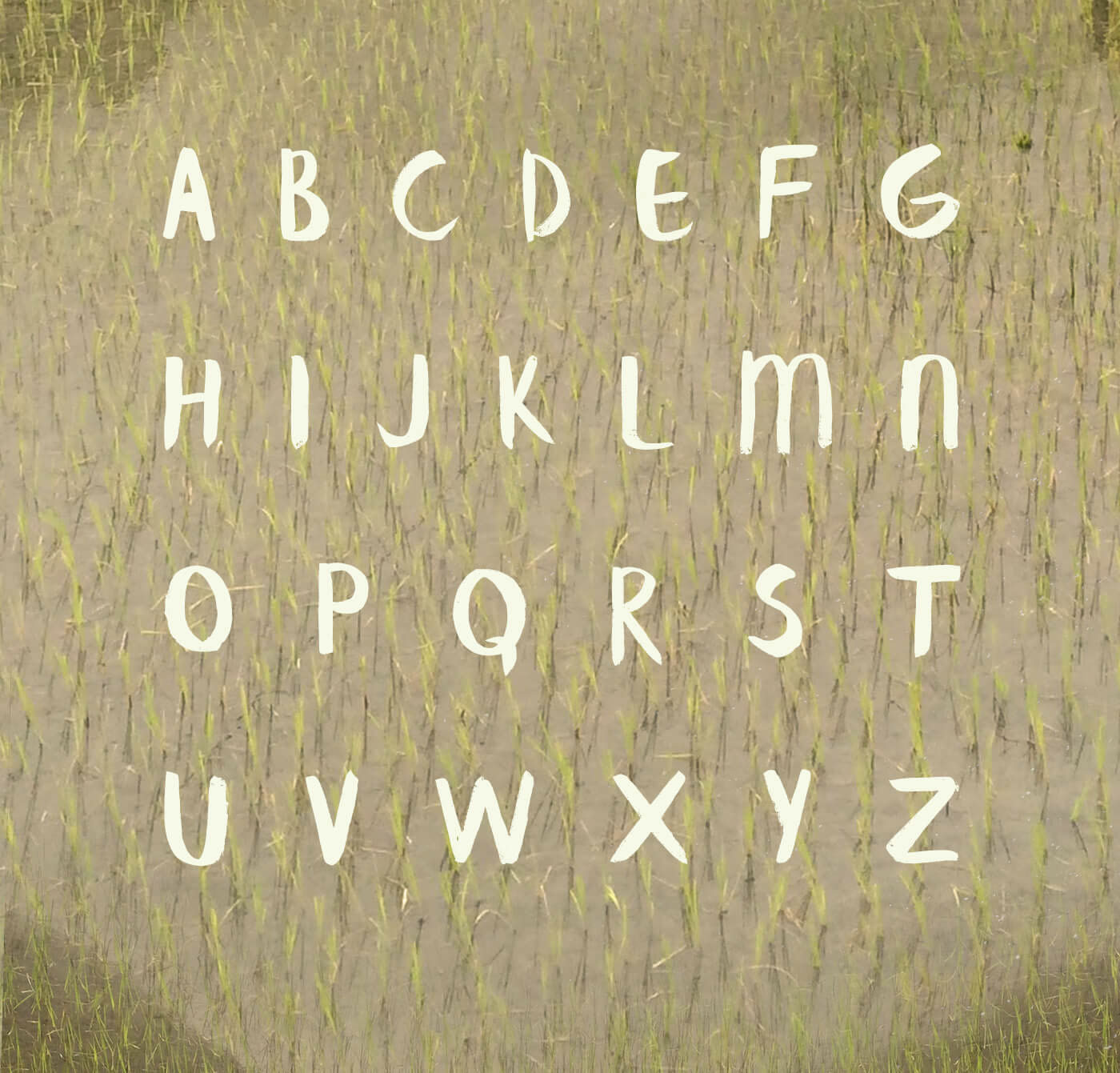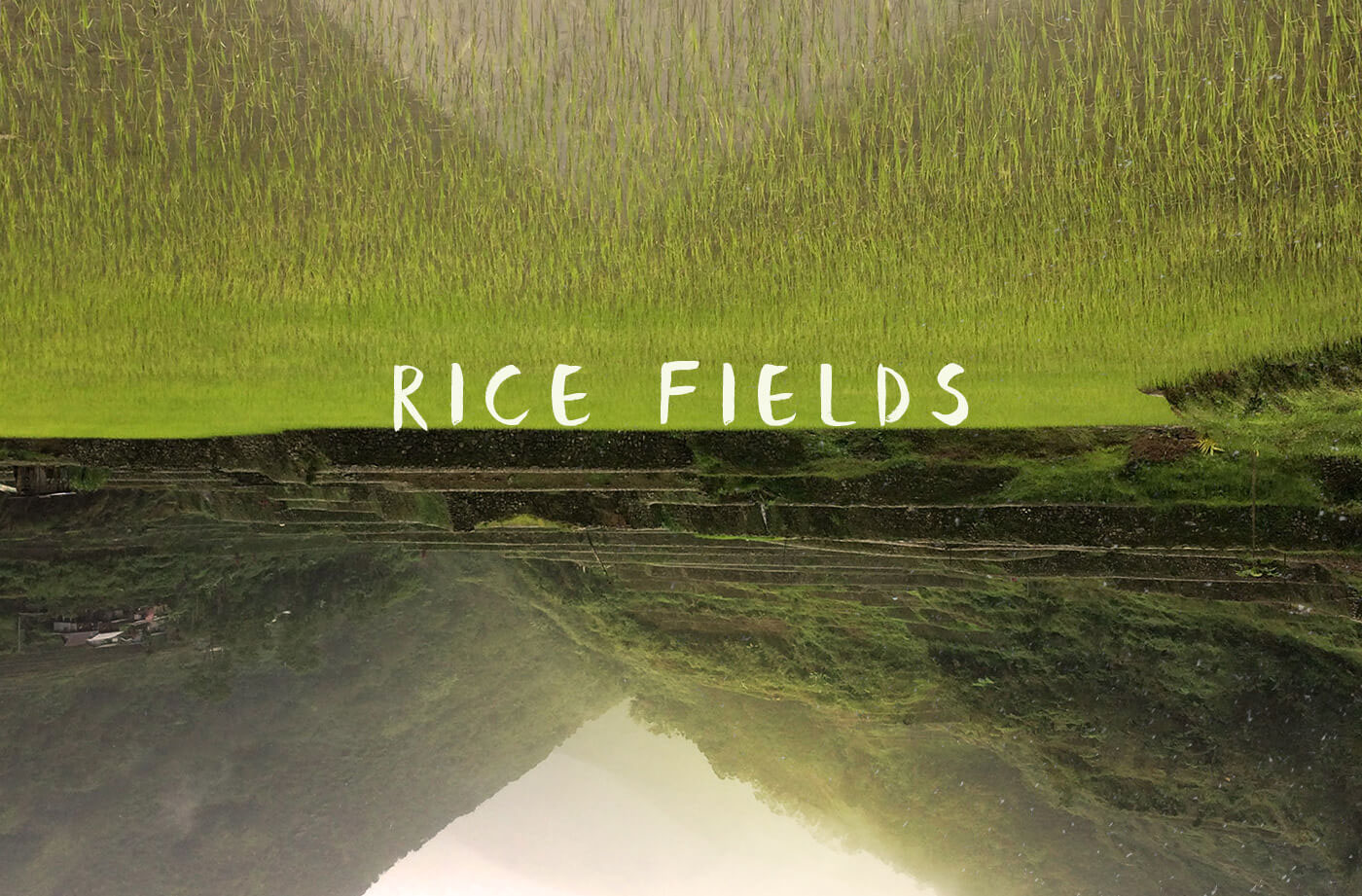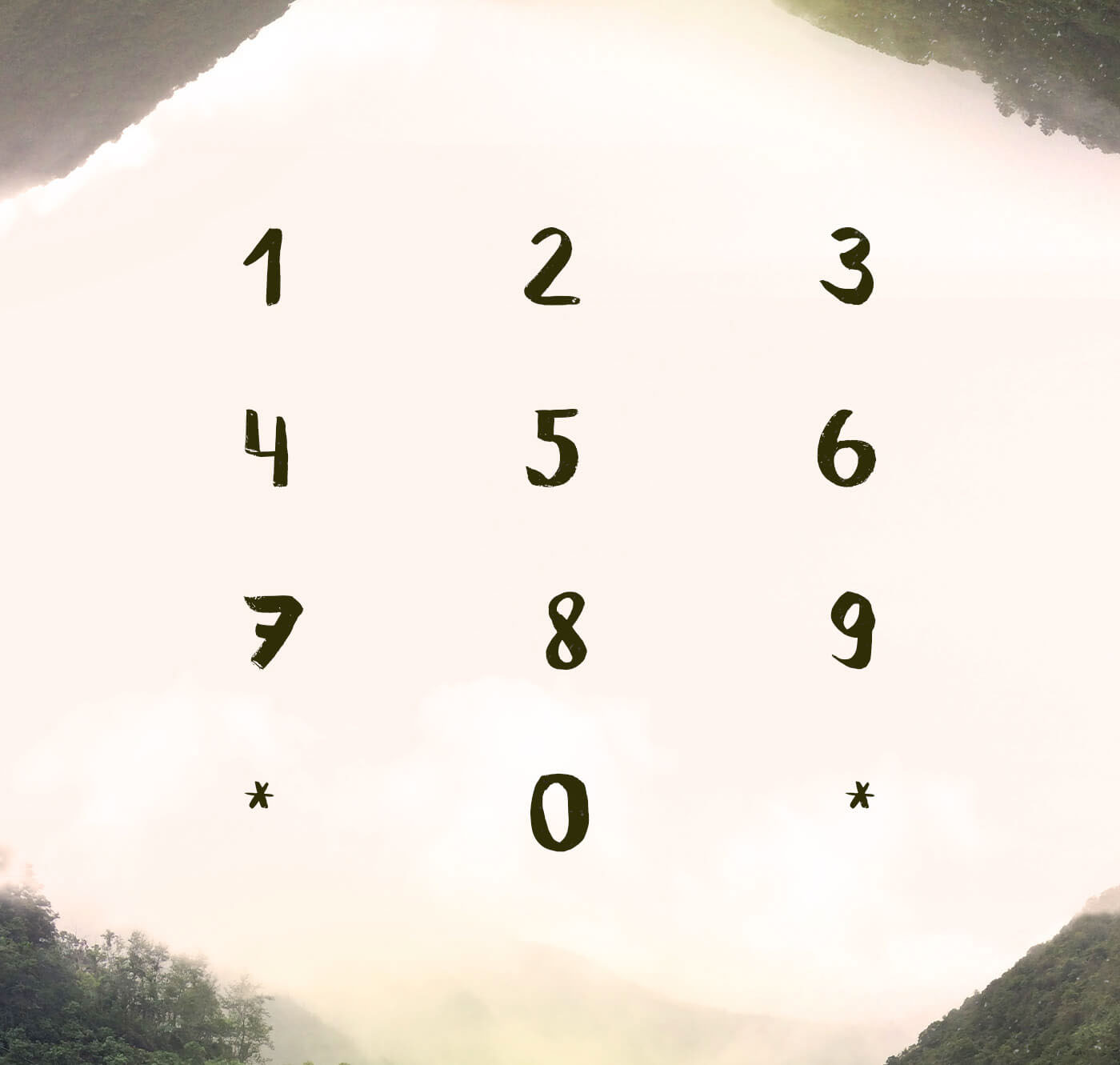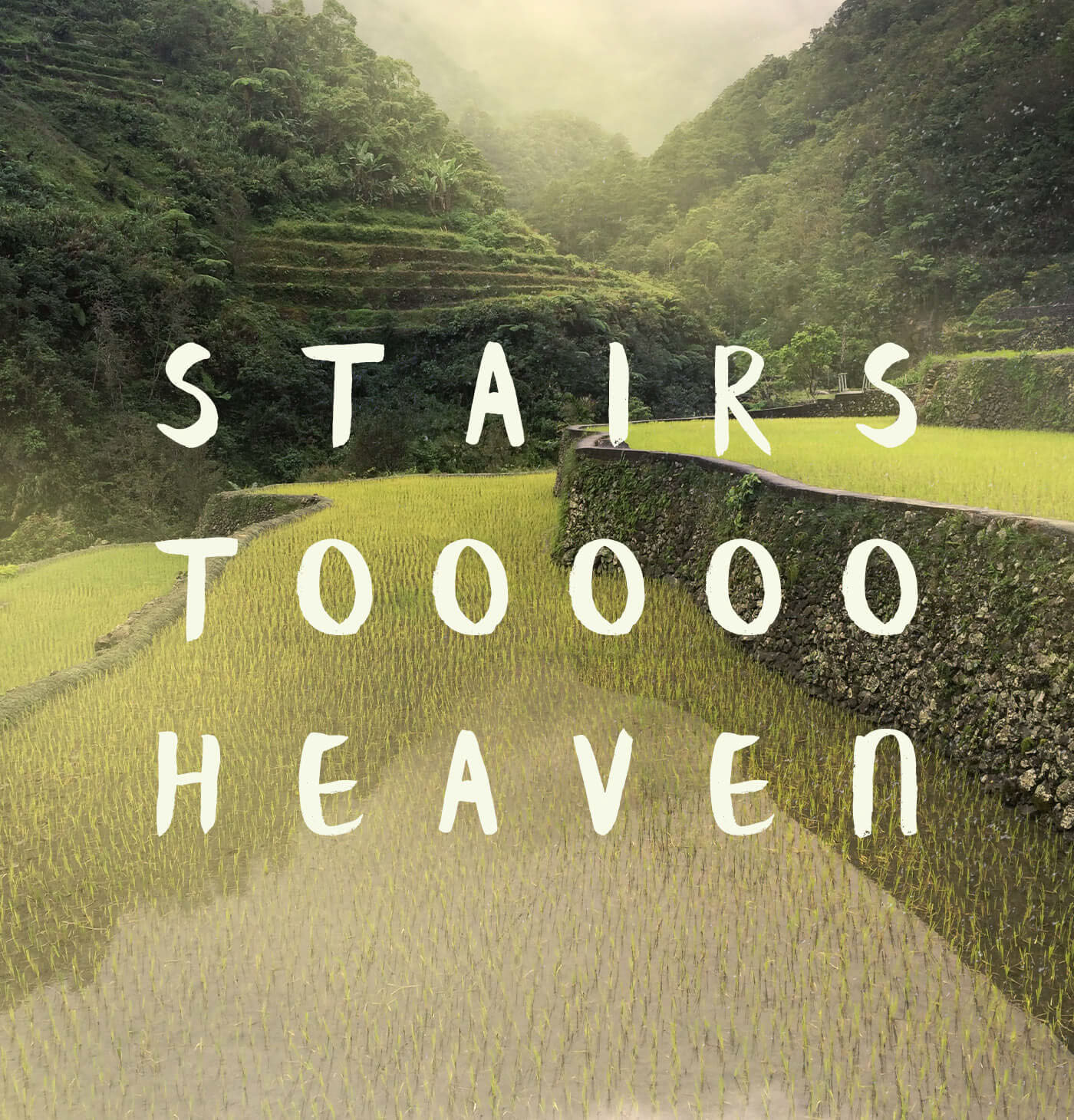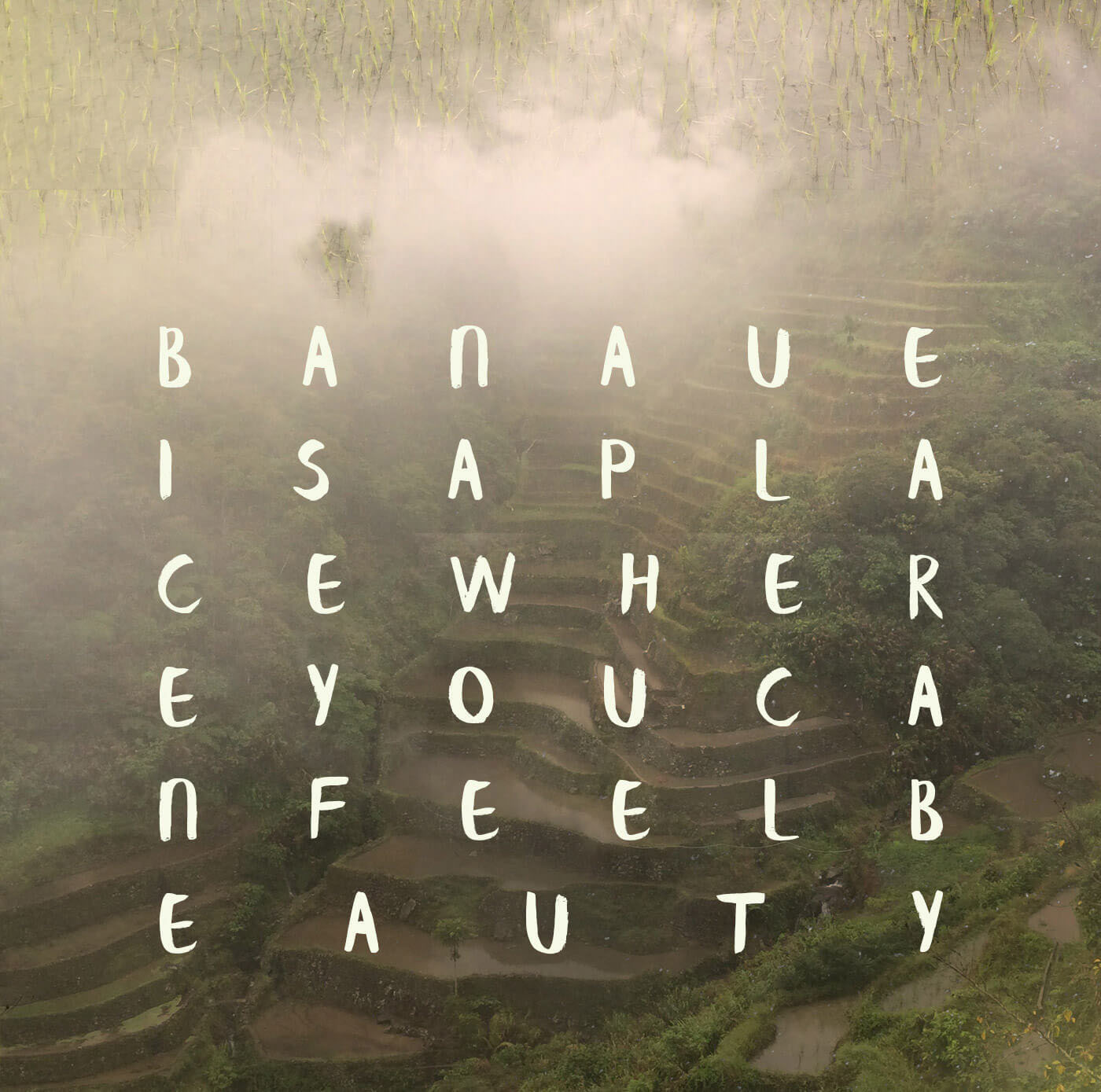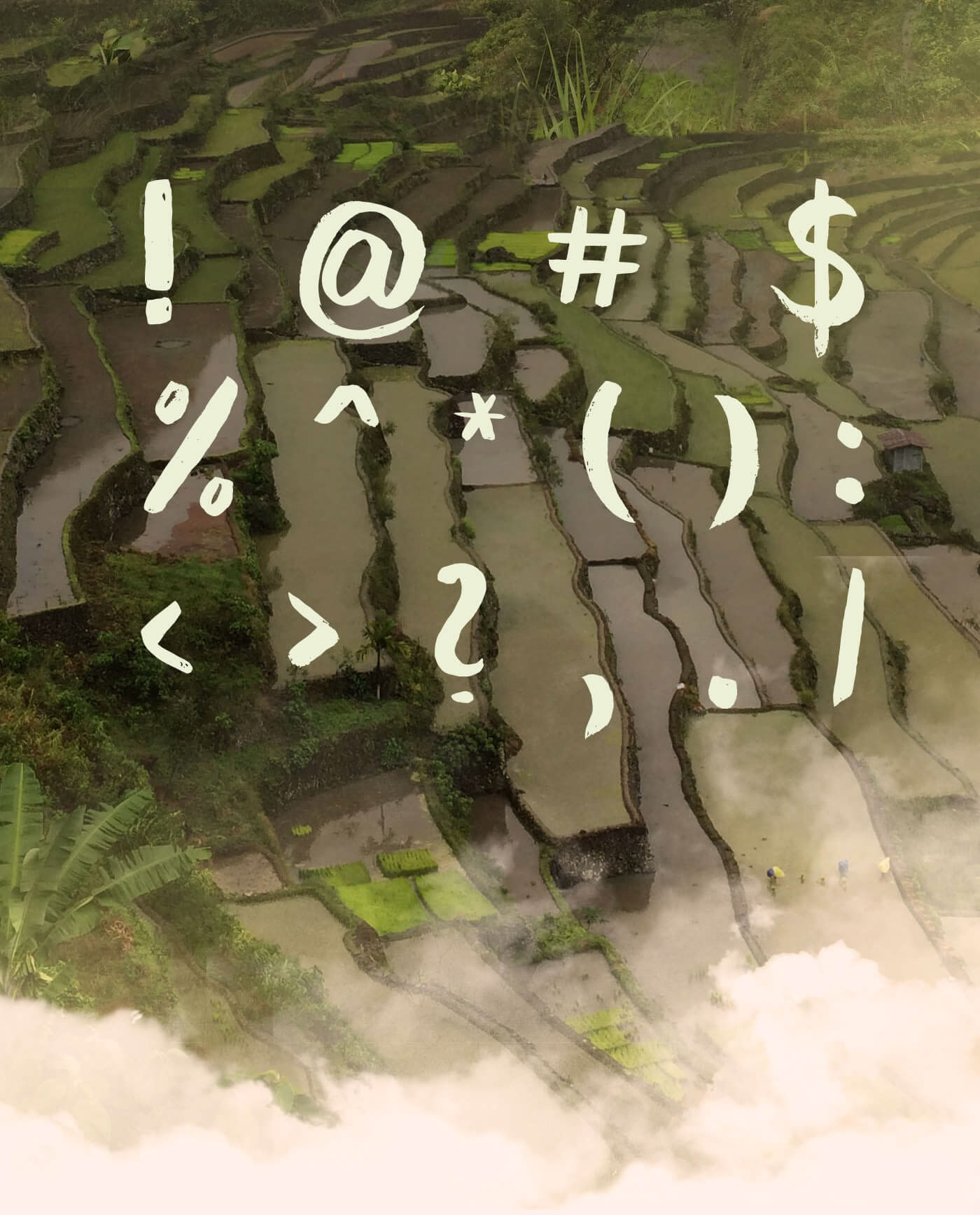
Designed by Wild Ones Design, Banaue is a handwritten brush font for a homemade look. The name comes from Philippenes – Banaue is a place in the north with rice terraces that stretch around mountains. Download the free version beneath the previews! Free for personal use!